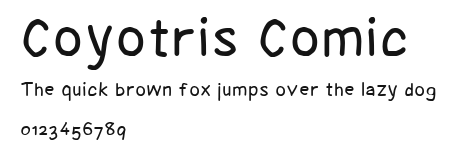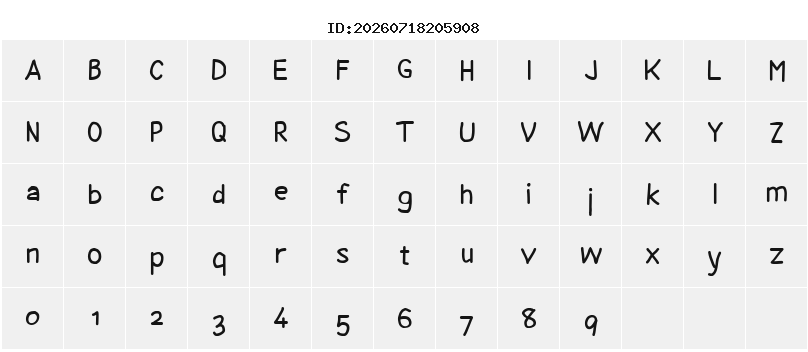
Coyotris Comic Preview
• Font Name: Coyotris Comic
• Manufacturer: Jayvee D. Enaguas
About Coyotris Comic.ttf
Coyotris Comic.ttf is a modern, elegant sans-serif font designed for ultimate readability and visual harmony. Perfect for branding, headlines, web design, and print materials.